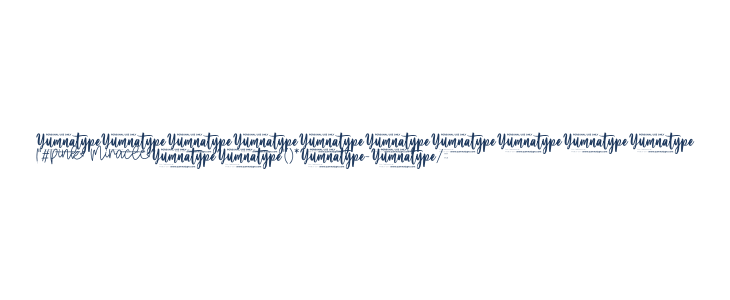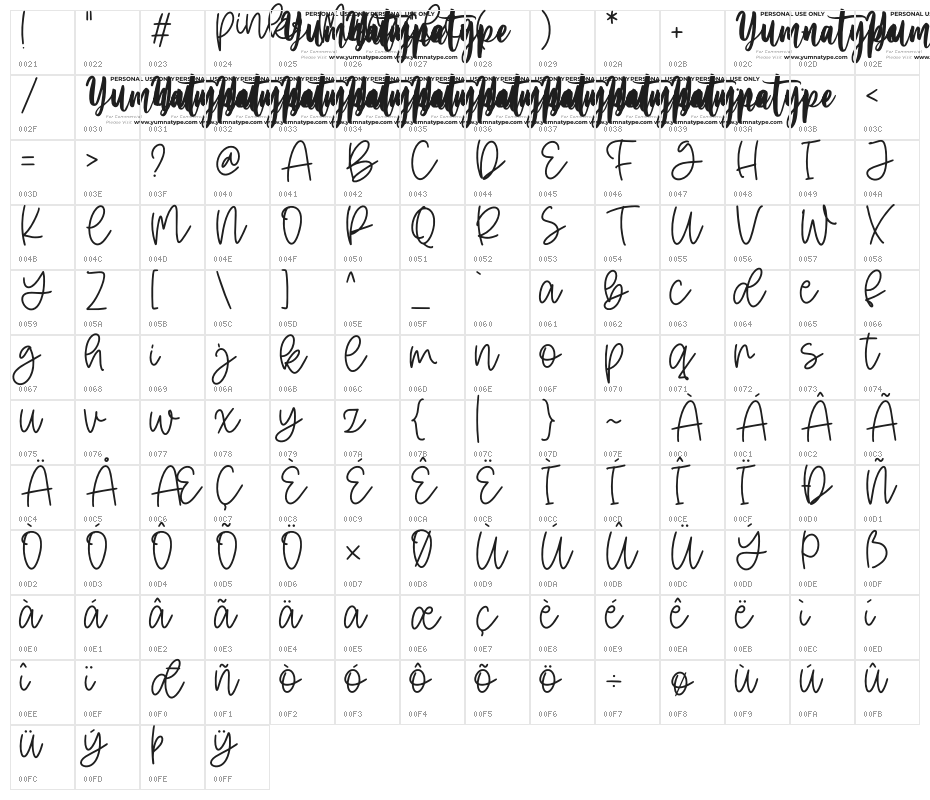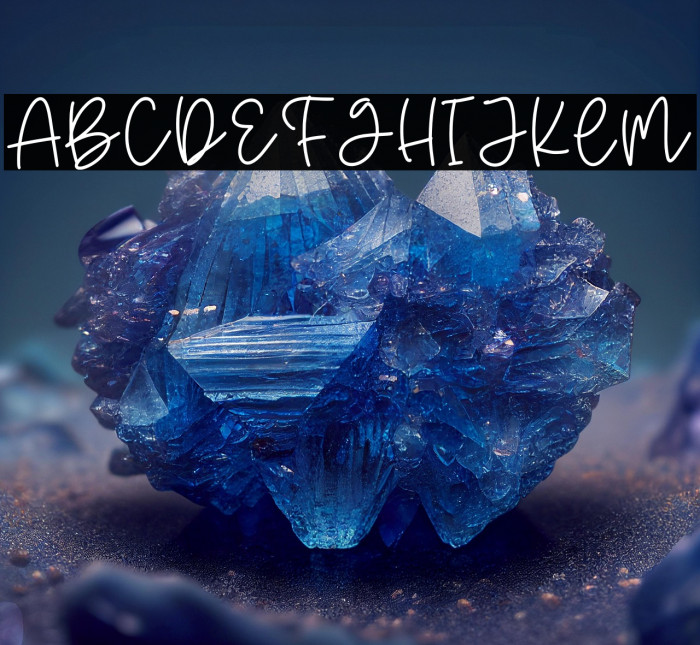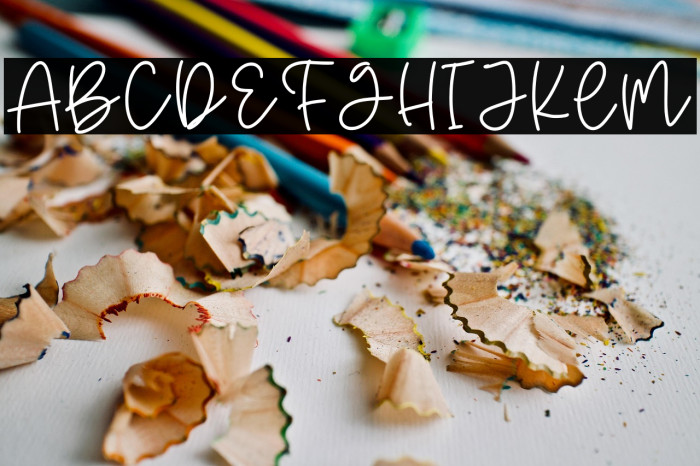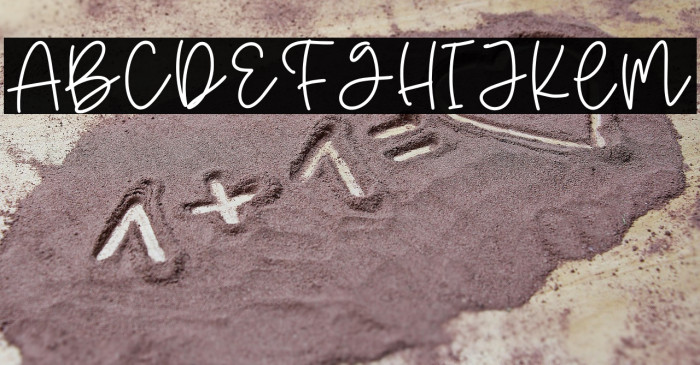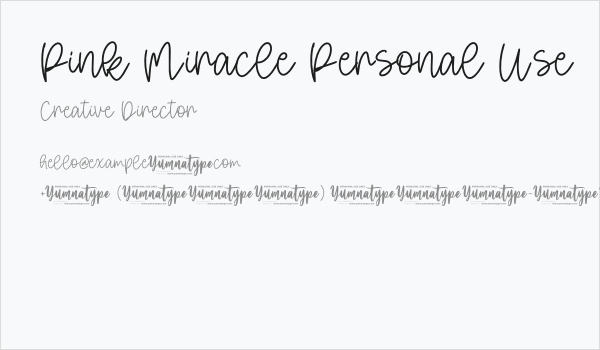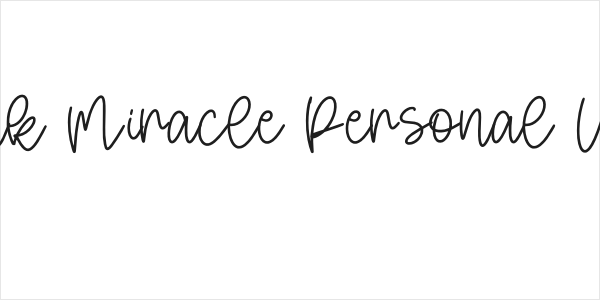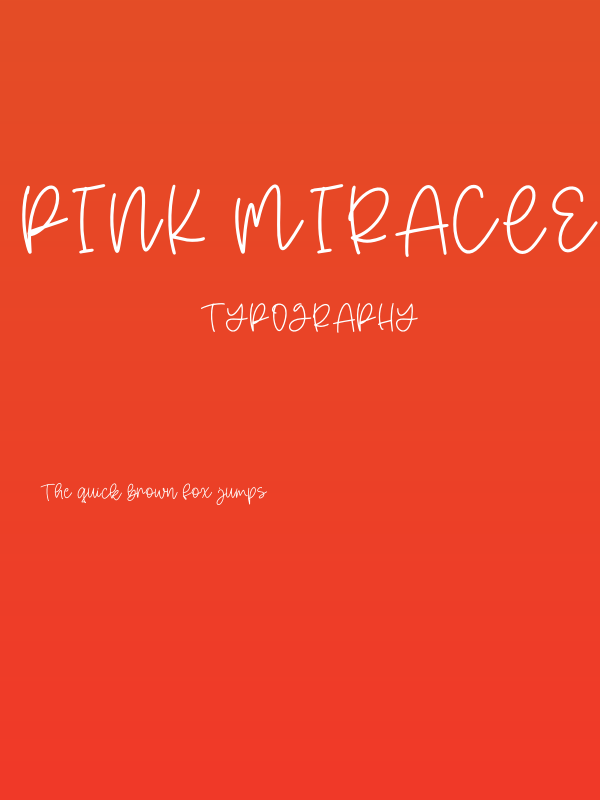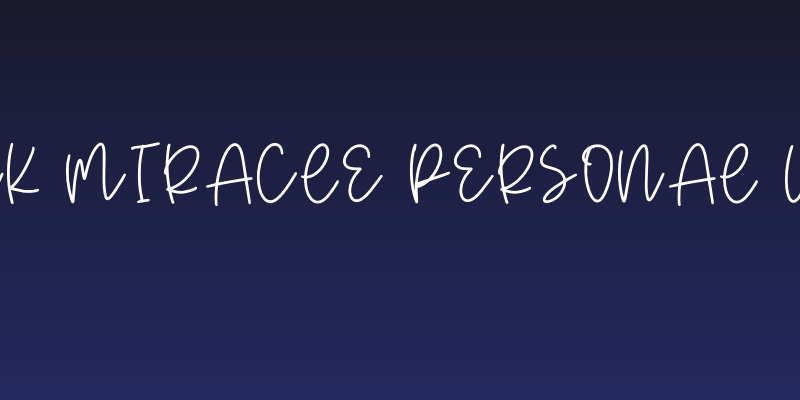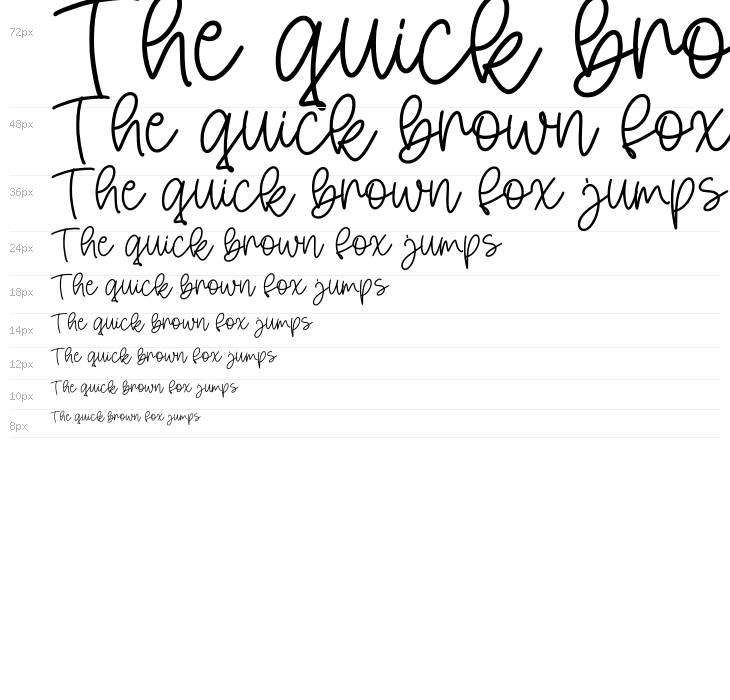
Pink Miracle Personal Use Font
Pink Miracle Personal Use Description
This font features a playful and whimsical handwritten style, characterized by its flowing, cursive letters. The uppercase and lowercase letters exhibit a consistent slant, giving a sense of movement and fluidity. The strokes are smooth and rounded, with a slight variation in thickness that adds a touch of elegance. The font maintains a casual yet sophisticated appearance, making it suitable for a variety of creative projects. Its unique charm is enhanced by the inclusion of special characters, which are seamlessly integrated into the overall design.
| Proposed Projects | Ideal for greeting cards, invitations, personal branding, and creative social media graphics. |